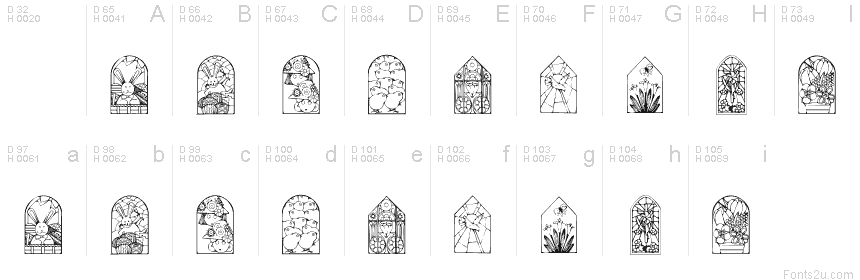
KR Easter Windows
KR Easter Windows font by Katsfunfonts is a free decorative dingbat typeface. Each glyph draws a tiny stained-glass style “window” packed with Easter charm-chubby bunnies, florals, eggs, and churchlike arches outlined in crisp black lines that beg to be colored in. The artwork feels hand-drawn yet structured, so your layouts get both playful energy and a sense of crafted detail without needing separate illustrations.
Using KR Easter Windows is a natural fit for kids’ activity sheets, coloring pages, Easter party invitations, church bulletins, scrapbook accents, and printable gift tags. This free font shines when set large so the glassy panes and patterns stay clear; pair it with a simple rounded sans serif for any accompanying text to keep the illustrations in the spotlight.